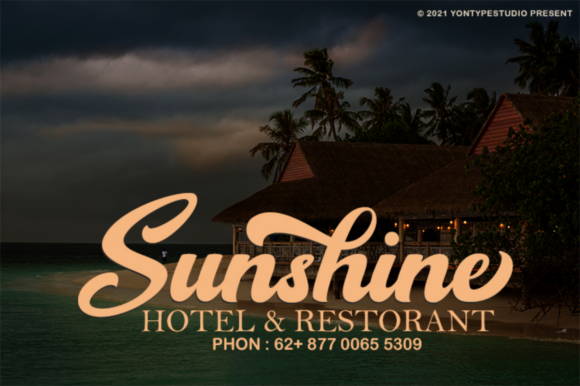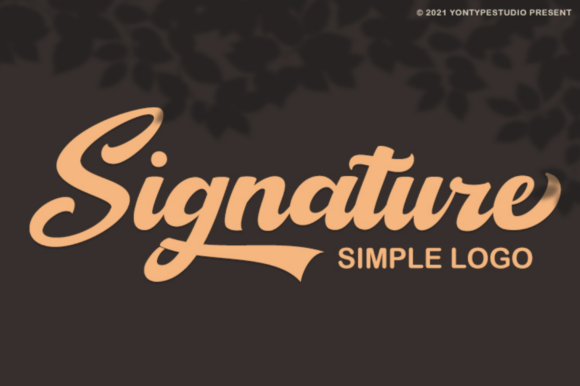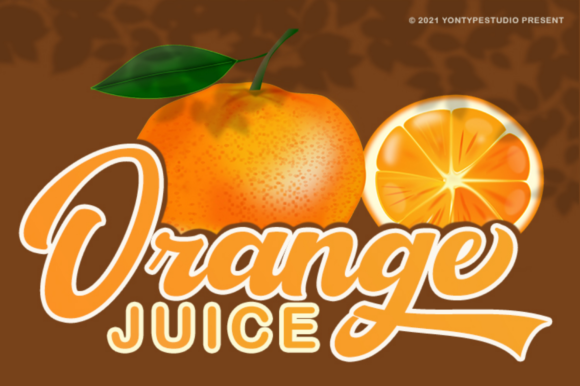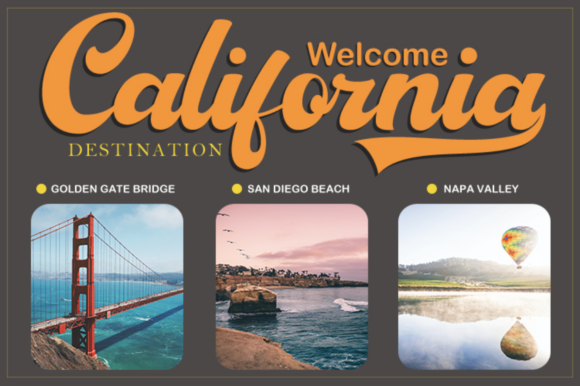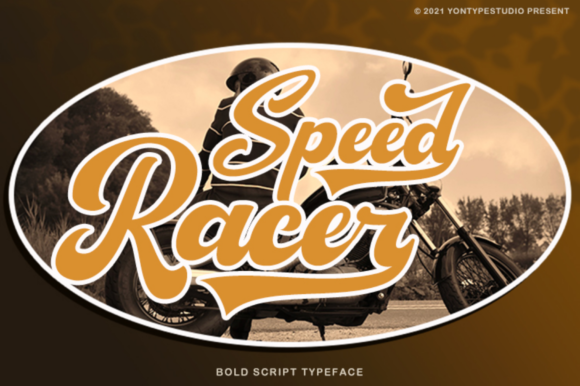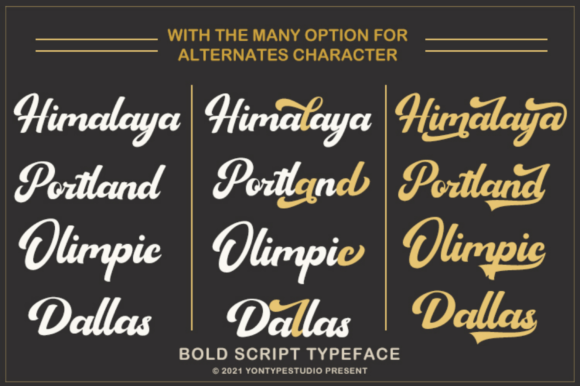
Introduction to Sagha Font
You’ve finally nailed the perfect concept for your creative project, and it’s time to give it the visual impact it deserves. But, have you ever struggled to find the right font that captures the essence of your design? For those moments of creative frustration, we’ve got just the thing – the Sagha Font. This retro-styled, thick lettered handwritten font is a game-changer for designers looking to add a stylish touch to their headlines and logotype projects.
Imagine being able to convey strength, confidence, and dynamism with just one font choice. That’s exactly what the Sagha Font offers, making it a valuable resource for any designer looking to elevate their work. With its high-quality design, this font is perfect for designers seeking a unique and creative way to express themselves.
Key Features of Sagha Font
- High-quality, elegant design perfect for a creative project, making it a valuable design resource.
- High-resolution design, suitable for use in both print and digital media.
- Unique, cursive script style with a touch of sophistication, setting it apart from other fonts.
Honest Review: Sagha Font
As a designer, I’m always on the lookout for high-quality fonts to enhance my creative projects. Recently, I had the chance to try out the Sagha Font, and I’m excited to share my thoughts on this design resource.
- ✨ High-quality design: The Sagha Font is beautifully crafted with intricate details and elegant lines.
- ✨ Versatile: This font is suitable for a wide range of creative projects, from branding to digital design.
- ✨ Transparent background: The font’s transparent background allows for easy layering and composition.
- ⚠️ Limited language support: The Sagha Font primarily supports Latin-based languages, which might be a concern for designers working on projects that require non-Latin scripts.
- ⚠️ Not ideal for small text: The font’s intricate design can make it challenging to read when used in small text sizes.
Overall, I’m impressed with the Sagha Font’s high-quality design and versatility. While it may have some limitations, it’s an excellent addition to any designer’s toolkit. I’ll definitely be using it in my future projects.
Sagha Font
The Sagha Font is a versatile and high-quality design resource perfect for creative projects. Its unique style and transparent background make it an ideal choice for designers looking to add a touch of elegance to their work.
Tips for Getting the Most Out of Sagha Font
To get the most out of the Sagha Font, try using it in conjunction with other high-quality design resources. Experiment with different font sizes, colors, and backgrounds to create a unique and eye-catching design.
The Sagha Font is commonly used in:
- Editorial and magazine designs
No, the Sagha Font is a solid font and does not have a transparent background. However, you can use it in conjunction with other design elements that have a transparent background to achieve the desired effect in your design project.